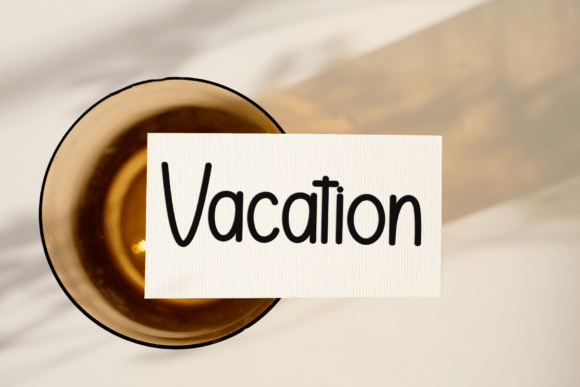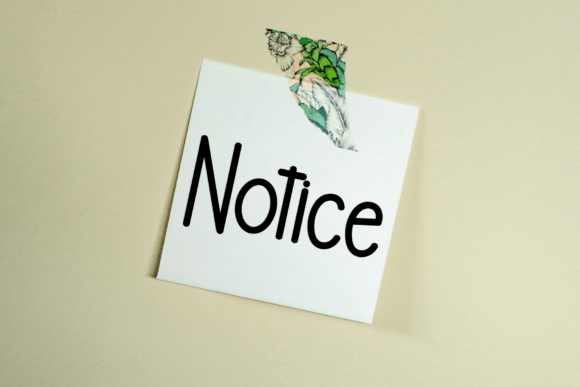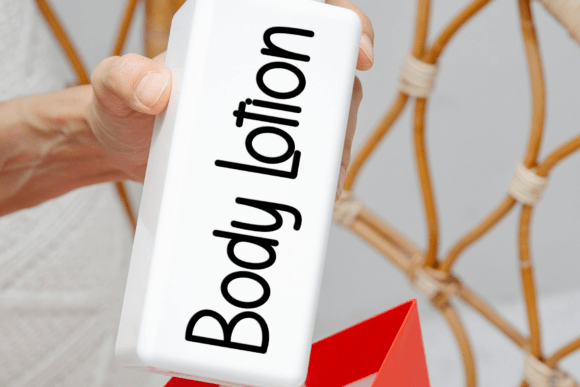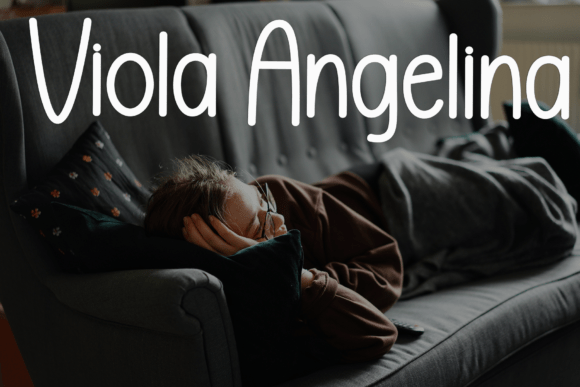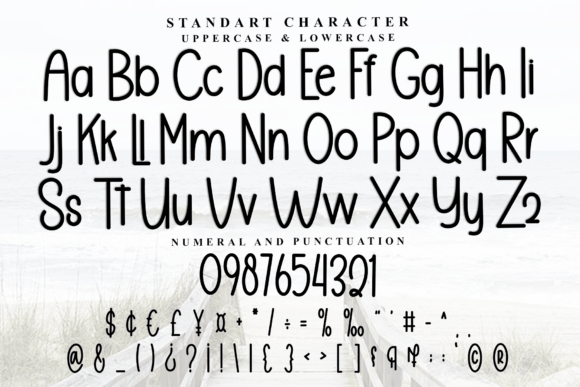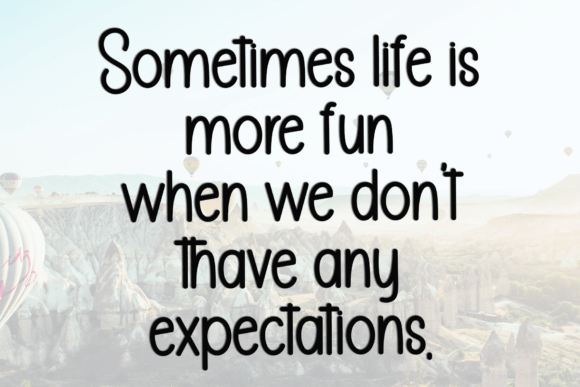
Introducing Happines Christmas Font: A Magical Touch for Your Designs
Are you looking for a font that adds a special touch to your designs, crafts, and creative projects? Look no further than the Happines Christmas Font, a beautiful and eye-catching typeface designed with a soft, unique touch. This stunning font is perfect for designers, crafters, and artists seeking to add a dash of magic to their work.
A Unique and Versatile Font
Happines Christmas Font boasts distinctive strokes that give it a special character, making it meaningful and versatile for future use. Its unique design ensures that your creations stand out from the crowd, making it an excellent choice for various design projects, crafts, and other creative works.
Key Features of Happines Christmas Font
- Variety of Characters: The font comes with a range of characters, ensuring that you have ample options for your designs.
- Natural Font Style: The font’s natural style makes it perfect for a wide range of products, from digital designs to print materials.
Whether you’re a professional designer or a crafter, Happines Christmas Font is an ideal choice for adding a touch of personality to your work. Its unique design and versatility make it suitable for various artistic and creative fields, including:
- Graphic Design: Use Happines Christmas Font to create stunning logos, brochures, and posters that capture the attention of your audience.
- Crafting: Add a personal touch to your crafts, such as handmade cards, gift tags, and decorations, with this beautiful font.
- Digital Art: Incorporate Happines Christmas Font into your digital art, illustrations, and animations to give them a unique and festive feel.
Benefits of Using Happines Christmas Font
By incorporating Happines Christmas Font into your designs, you can:
- Enhance Your Designs: The font’s unique touch will elevate your designs, making them more appealing to a wide range of audiences.
- Stand Out: The font’s distinctive strokes will help your designs stand out from the crowd, making them more memorable and engaging.